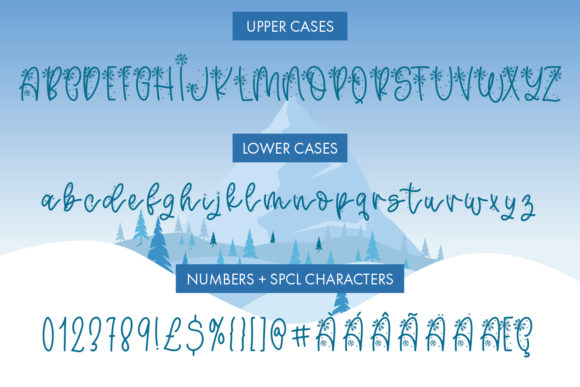
About North Pole Font
North Pole is a flowing and neat handwritten font. Perfect for each of your Christmas holiday or winter projects, this font is a must-have during the cold season.